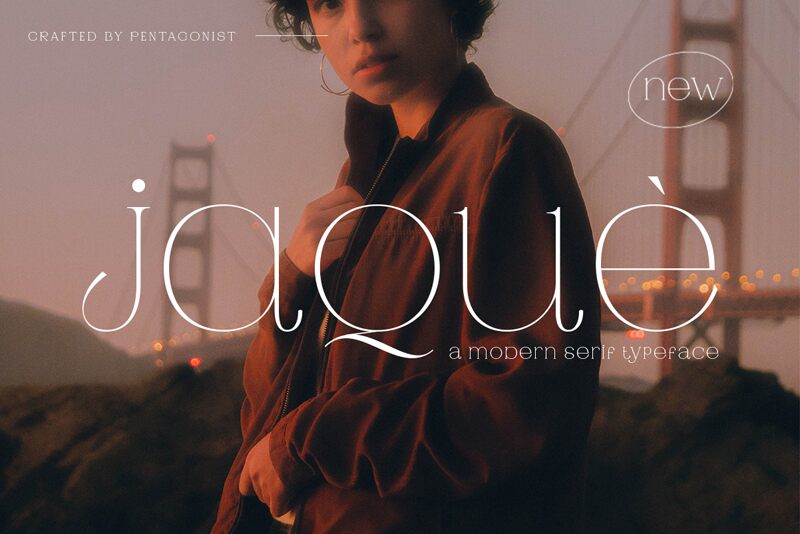
Jaque font by Pentagonistudio is a free serif font with an elegant, minimalist, and modern style. This highly refined typeface embodies a chic appeal that shows through the light-weight characters. Beautiful curve patterns are noticed in the letter designs while keeping all shapes easy to read and distinguish.
Design posters that capture attention with Jaque, and advertise your different projects with elegance. Use it for branding, logo creation, packaging design, blog posts, magazines covers as well as interior decoration elements like paintings or wallpapers.